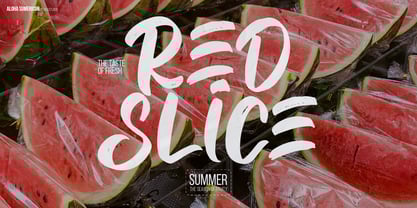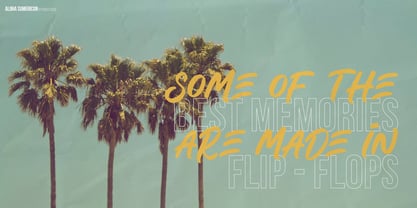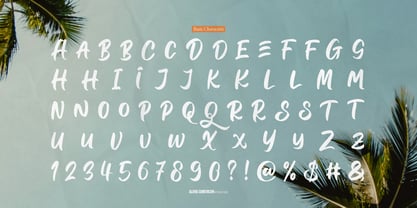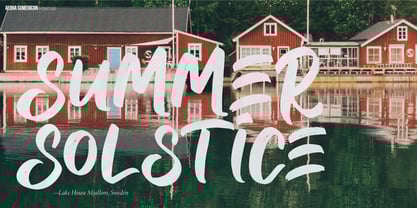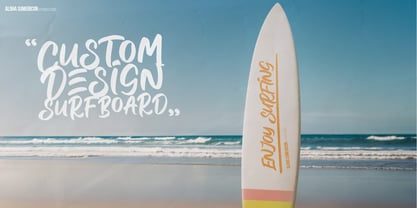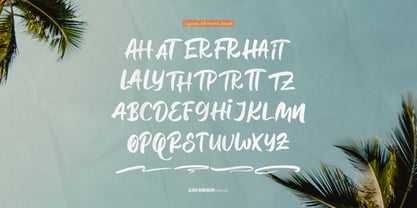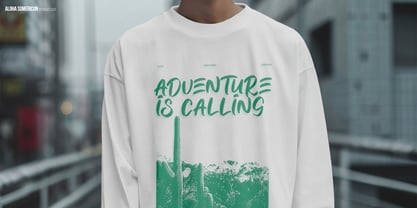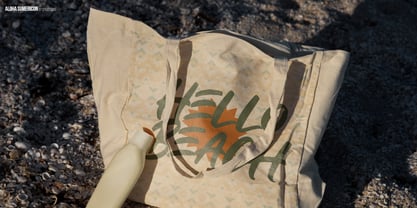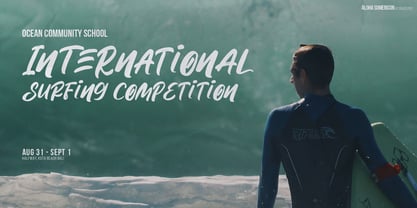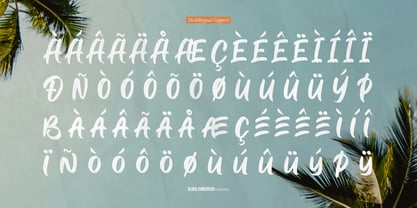
Aloha Sumericon
by Denustudio
The Aloha Sumericon Font Family was designed by Dede Nugraha and published by Denustudio. Aloha Sumericon contains 2 styles and family package options.
Aloha Sumericon | Hand Drawn Brush Font, from Denustudios, suitable for any projects such as: logos, branding projects, homeware designs, product packaging, mugs, quotes, posters, shopping bags, t-shirts, book covers, name card, invitation cards, greeting cards, label, photography, watermark, special events, and all your other lovely projects that need a Hand Drawn Brush Font taste.
• Regular and Italic
• Alternate and Ligature
• Fonts include multilingual support